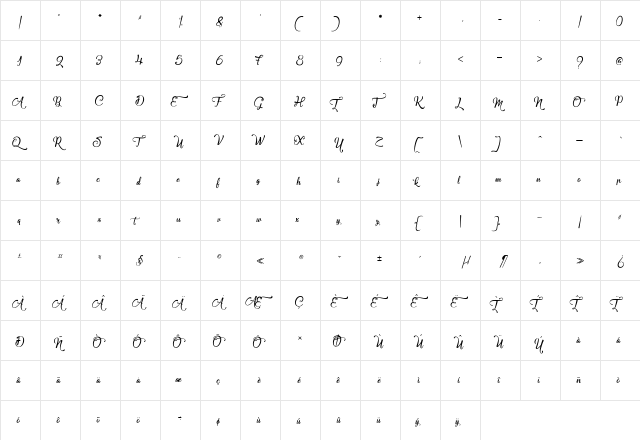
Soulmaker in the Mountains Regular
| Foundry | Cataleya Butcher |
| Designer | Cataleya Butcher |
Design Context for Soulmaker in the Mountains Typeface
Soulmaker in the Mountains is a composed and adaptable typeface that performs quietly and consistently across a wide range of design contexts.